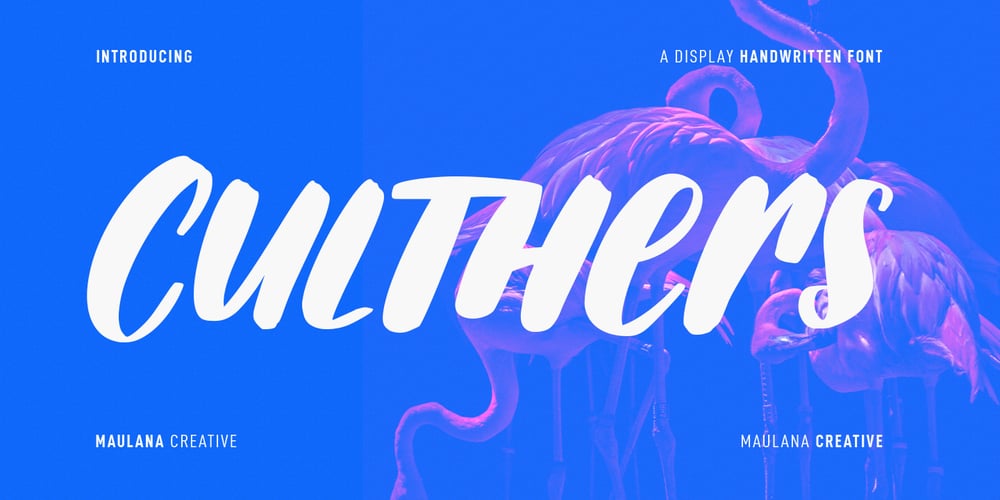
Culthers Font Family was designed by Gilang Maulana and published by Maulana Creative. Culthers contains 1 styles and family package options. Culthers is a casual handwritten display font. With bold slanted stroke, fun character with a bit of ligatures and alternates. To give you an extra creative work. Culthers font support multilingual more than 100+ language. This font is good for logo design, Social media, Movie Titles, Books Titles, a short text even a long text letter and good for your secondary text font with sans or serif. Make a stunning work with Culthers font. Cheers, Maulana Creative